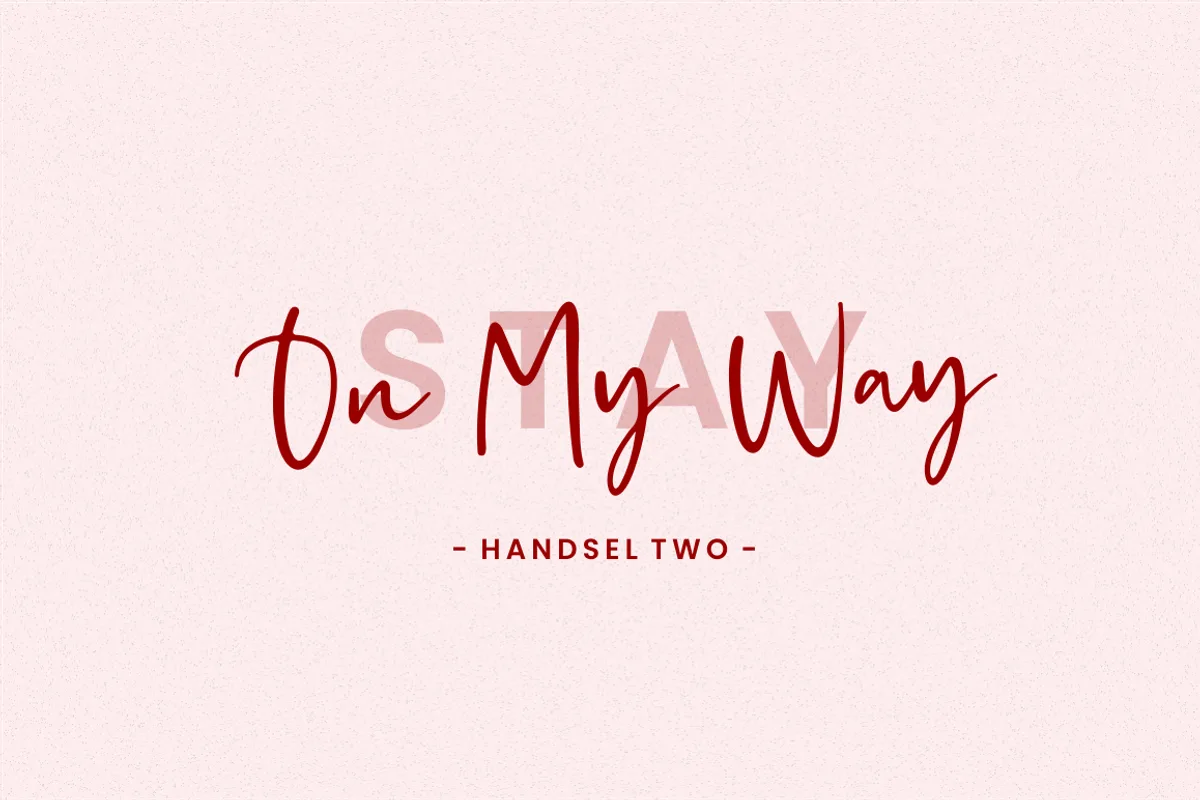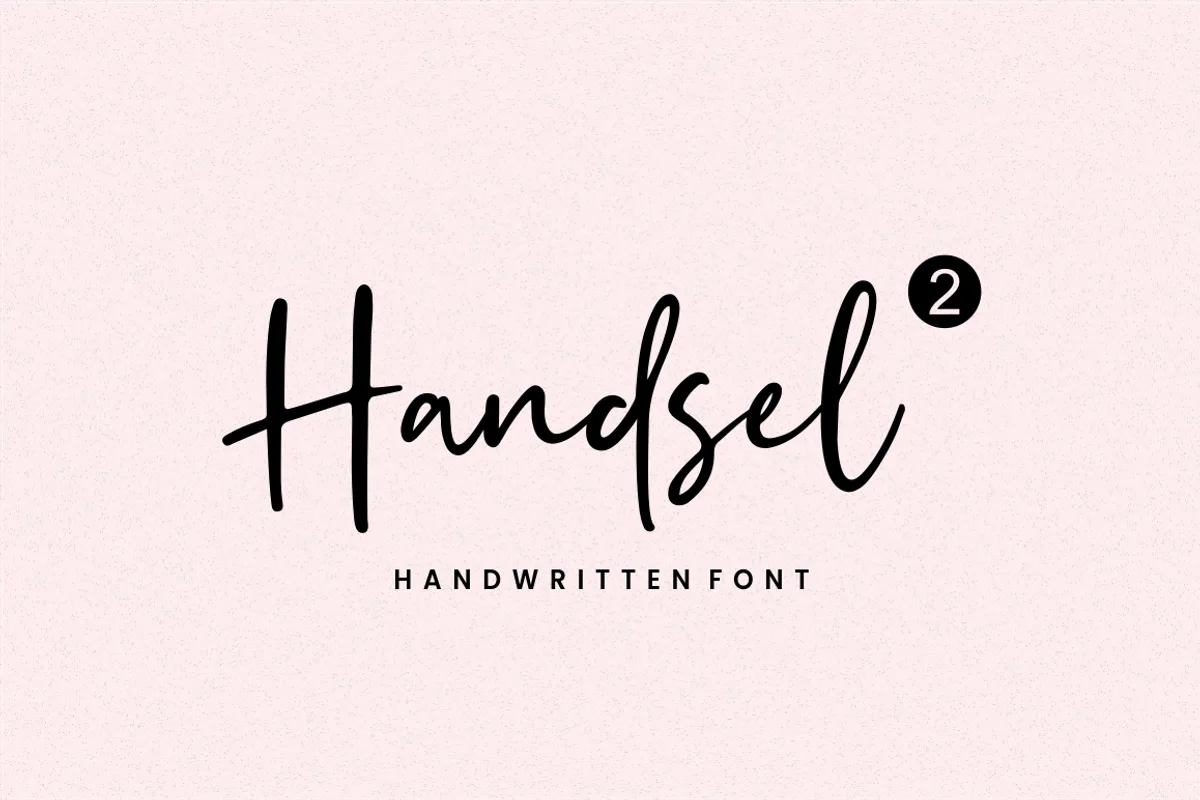
Handsel is a natural & modern handwritten font. It’s Perfect for logos, invitations, stationery, wedding designs, social media posts, advertisements, product packaging, product designs, label, photography, watermarks, special events, or anything.